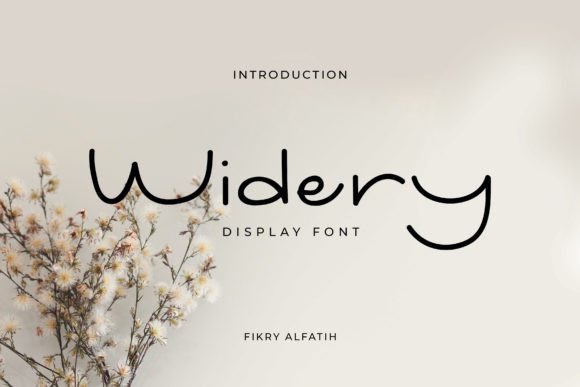
Introducing Widery Font - The Culinary Masterpiece for Your Brand's Feast
Welcome to the culinary haven of fonts, where Widery reigns supreme as the ultimate flavor enhancer for your brand's visual feast. As a display font, Widery serves as a tantalizing morsel that tickles the taste buds of your audience, leaving them craving more.
Crafted by the culinary maestro, Fikry Alfatih, Widery is a symphony of hand-crafted elegance, a delectable treat for your creative palate. With its luxurious hand-drawn effect, Widery transforms your designs into a mouthwatering visual feast, guaranteed to leave a lasting impression that lingers in the minds of your customers.
Picture this: Your brand, adorned with the Widery Font, takes center stage like a Michelin-starred dish. A tantalizing aroma of sophistication wafts through the digital air, captivating your audience with its irresistible allure. They can't help but indulge in the visual feast you've prepared, savoring every detail and craving more.
Elevate your quotes to culinary masterpieces, design logos that exude the essence of fine dining, and create brand identities that ooze an aura of exclusivity. Let Widery be the secret ingredient that transforms your product packaging into a tantalizing treat, your labels into works of edible art, and your social media posts into a visual feast that keeps your followers salivating for more.
With Widery as your font of choice, your website becomes a culinary haven, inviting your visitors to explore a world of flavors. They'll navigate through your digital establishment, savoring every morsel of information you serve up, eager to discover the next delectable dish on your menu.
Unleash the power of Widery and watch your brand blossom into a culinary sensation that leaves your competition green with envy. Let the aroma of your visual feast attract hoards of hungry customers, ready to savor the delectable designs you've prepared.